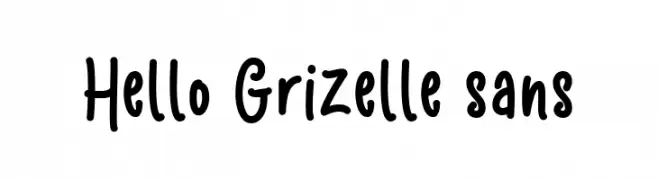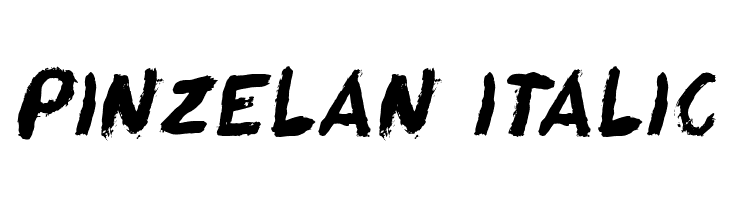
A modern, rounded sans-serif font with a friendly and approachable style.
A graceful script font with flowing, connected letters and a modern calligraphic style.
A graceful and flowing script font with elegant, cursive strokes.
A playful, handwritten font with smooth, rounded edges and a whimsical style.
A dynamic and expressive font blending script and display styles.
An elegant and flowing script font with graceful curves and sophisticated flair.
A bold, playful script font with rounded strokes and a dynamic slant.
A bold, expressive brush-style font with dynamic, uneven strokes.
A bold, brush-textured italic font with an expressive and dynamic style.